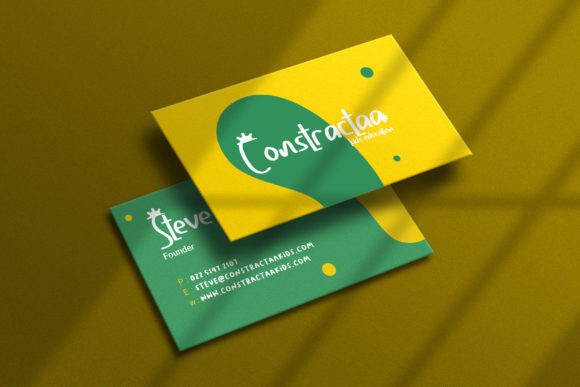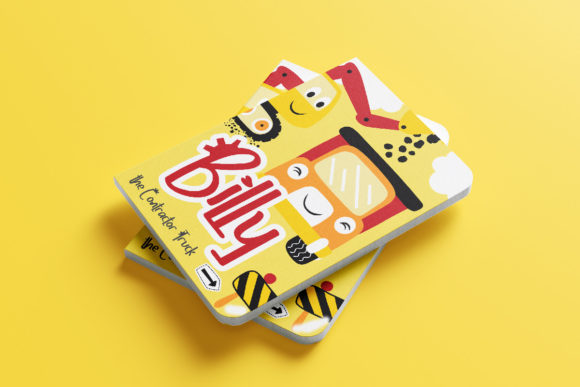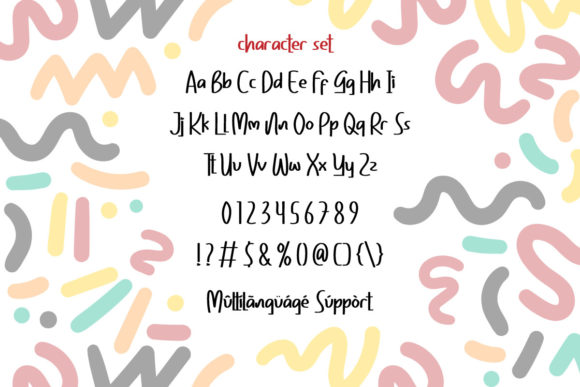
Introduction to Grand Auto Font
Grand Auto is a sweet and friendly handwritten font.
Its natural and unique style makes it incredibly fitting to a large pool of designs Grand Auto is PUA encoded which means you can access all of the glyphs and swashes with ease.